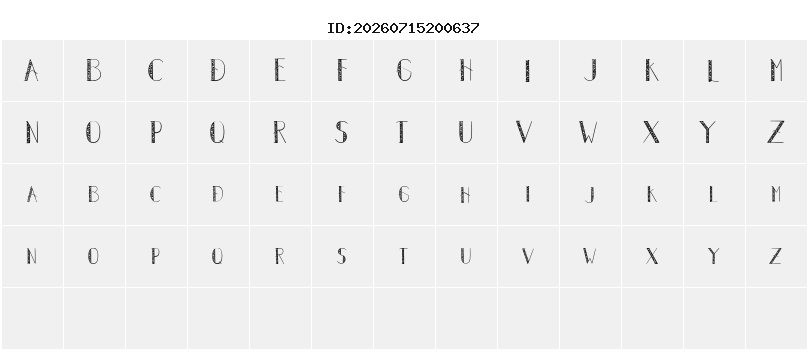
Autumn Leaves Preview
• Font Name: Autumn Leaves
• Full Font Name: Autumn Leaves Regular
• PostScript Name: AutumnLeaves
About Autumn Leaves.ttf
Autumn Leaves.ttf is a modern, elegant sans-serif font designed for ultimate readability and visual harmony. Perfect for branding, headlines, web design, and print materials.